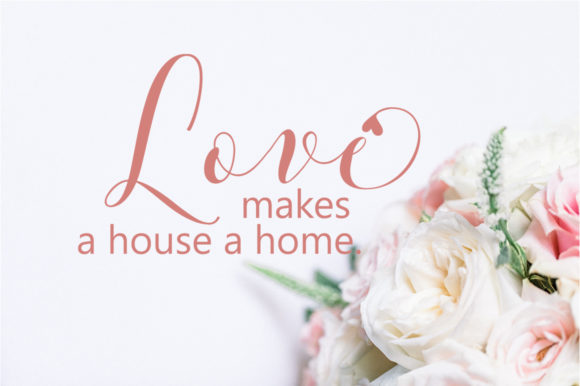
Nigella Font
db-ku.com - Script & Handwritten -- Nigella feels equally charming and elegant. This stunning handwritten font is a stylish homage to classic calligraphy. It features a varying baseline, smooth lines, gorgeous glyphs and stunning alternates. Its versatile look will appeal to a wide range of crafty ideas, from letterheads and titles, to stationery.